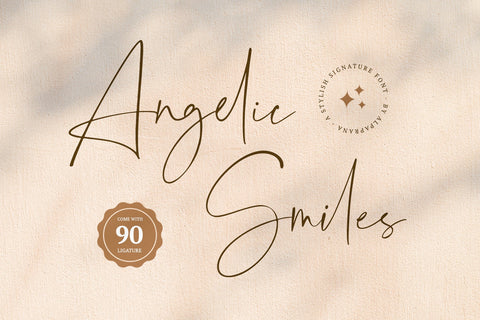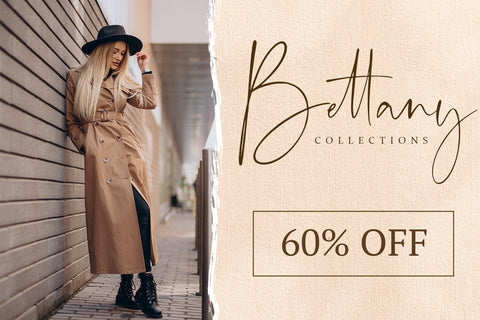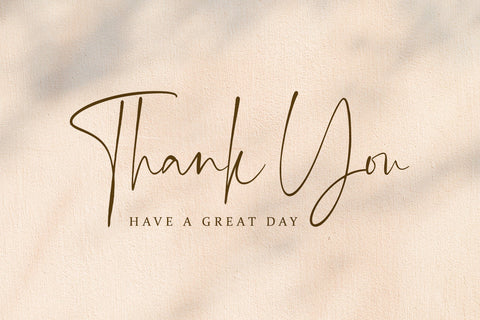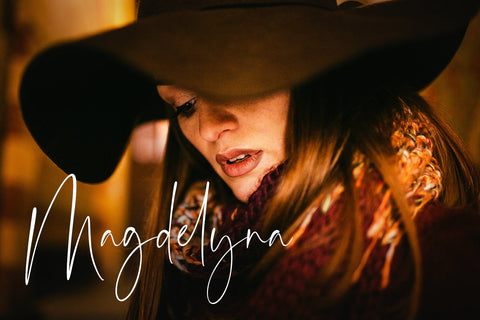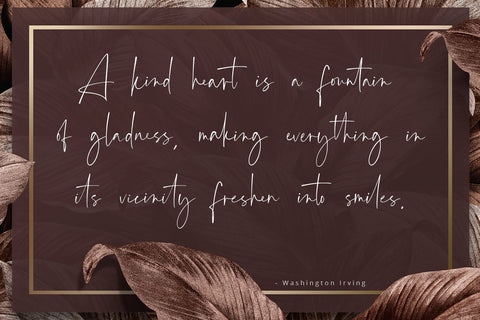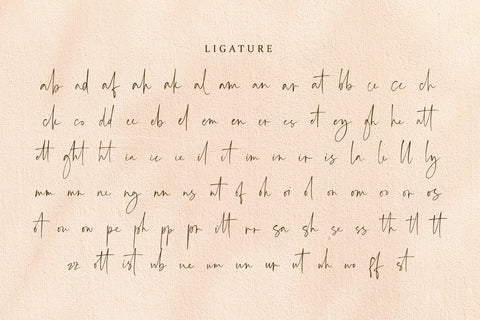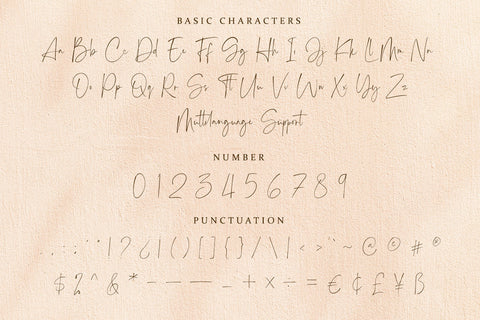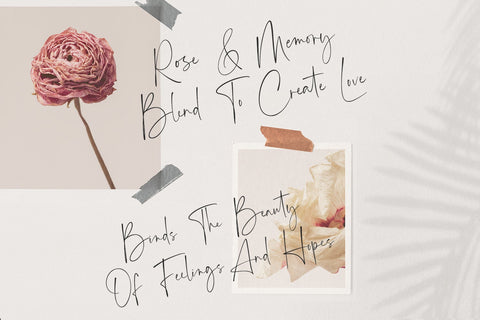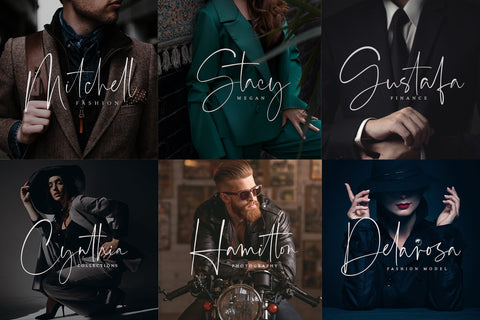
Angelic Smiles - Stylish Signature Font
Angelic Smiles is a stylish signature font with authentic and casual feels. It will be perfectly used for Branding, Logo Design, Lettering, Logotype, Clothing, Poster, magazine, packaging, posters, shopping bags, t-shirts, book covers, photography, special events and other design project.